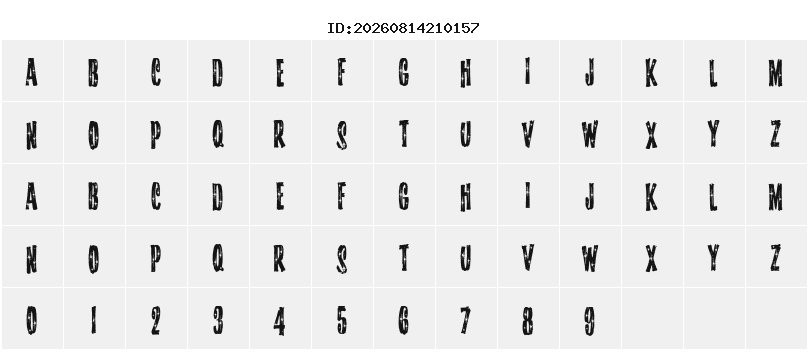
StarshineMF Preview
• Font Name: StarshineMF
About StarshineMF.ttf
StarshineMF.ttf is a modern, elegant sans-serif font designed for ultimate readability and visual harmony. Perfect for branding, headlines, web design, and print materials.